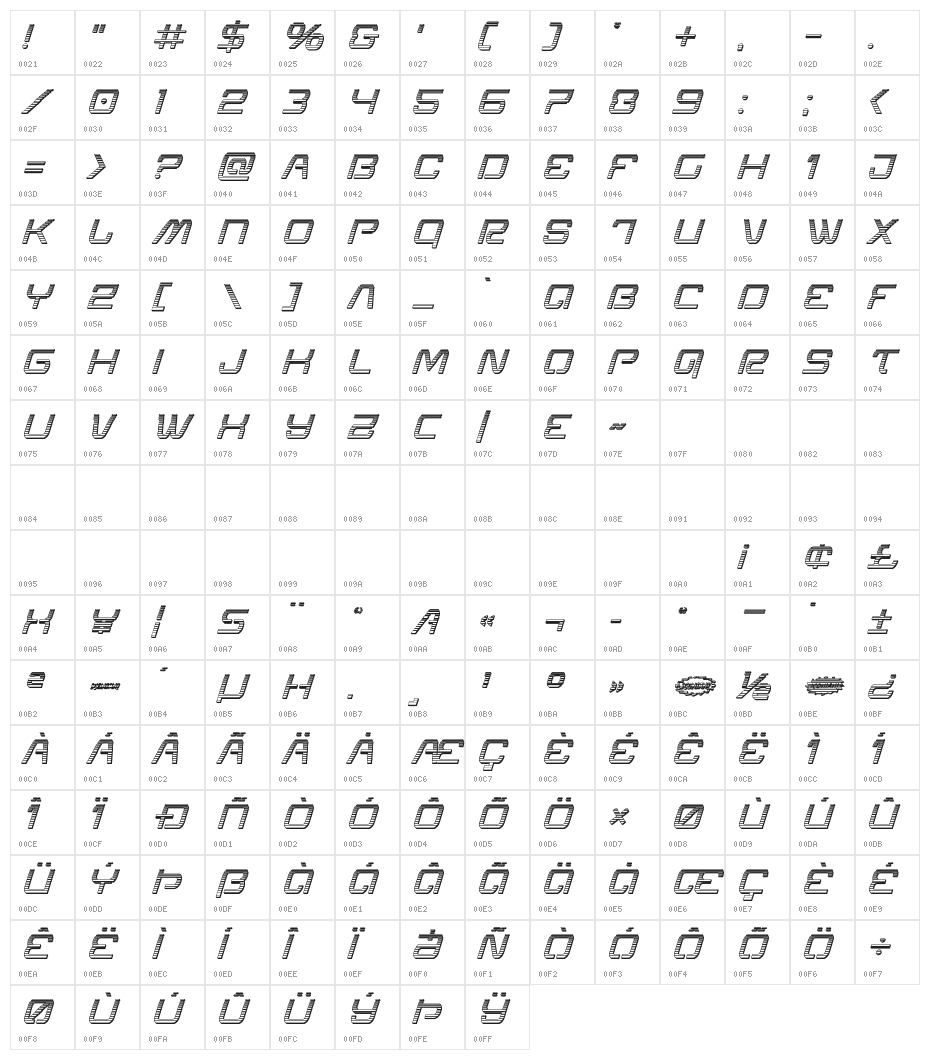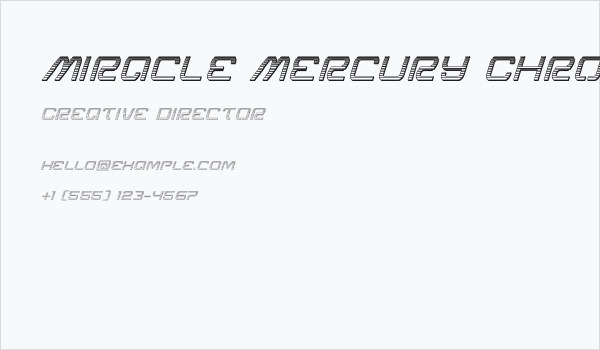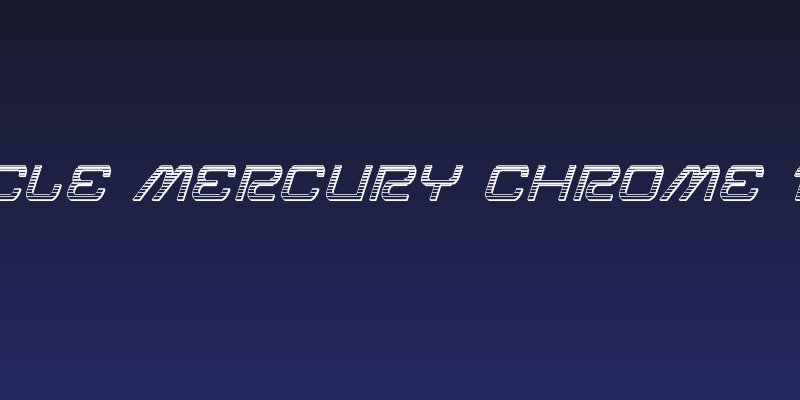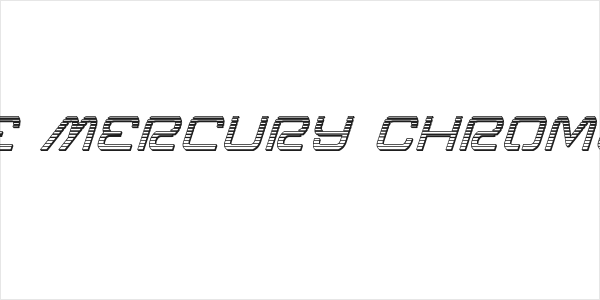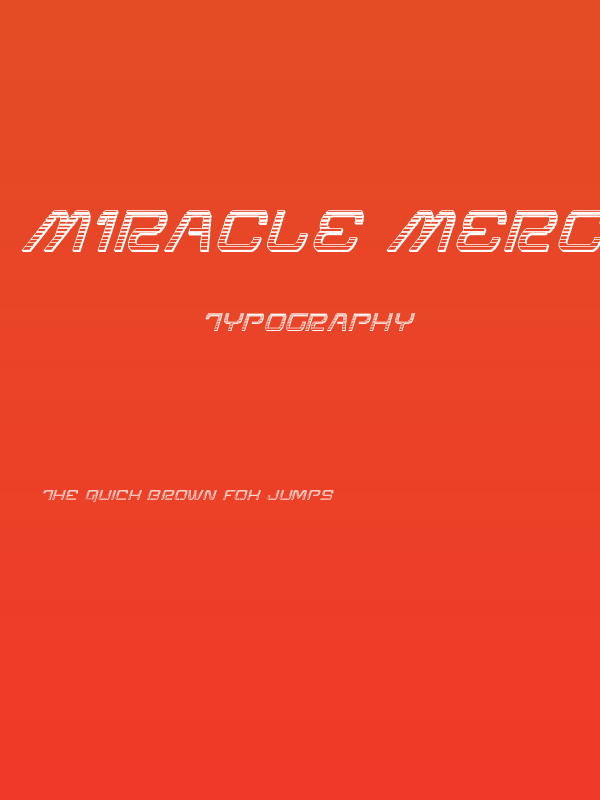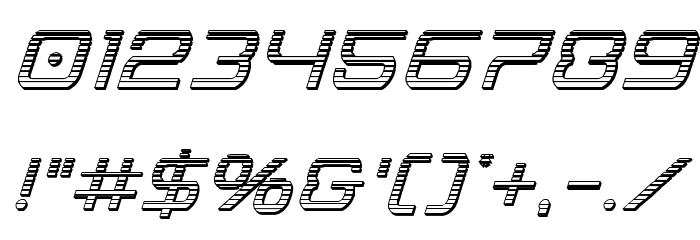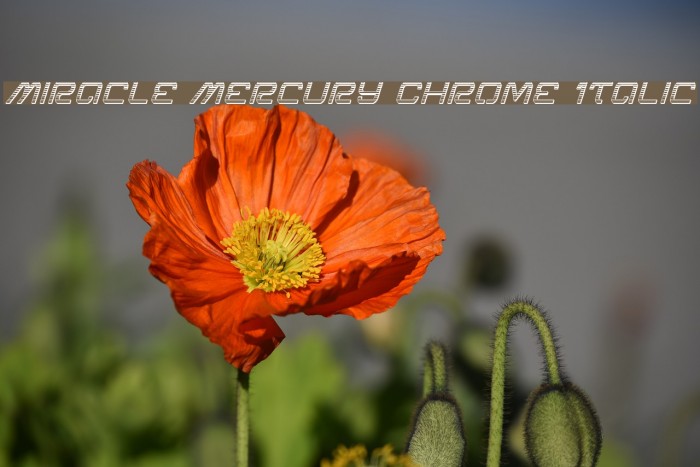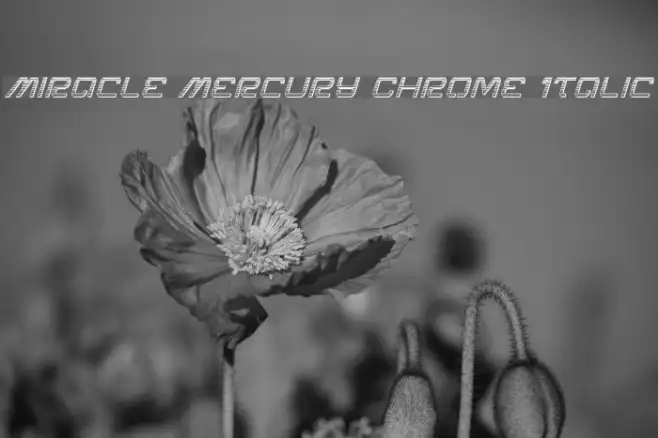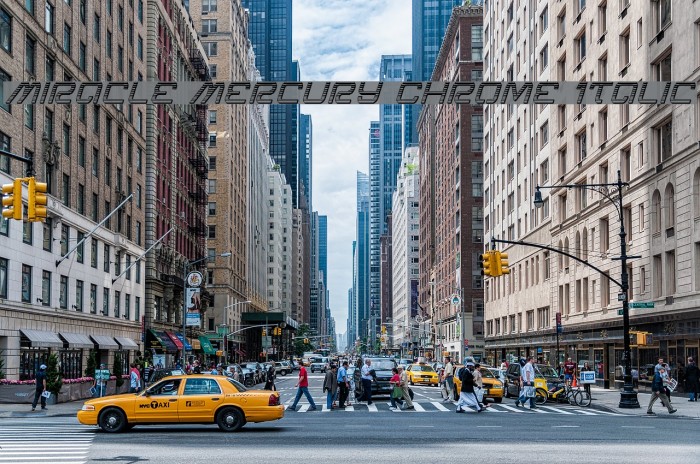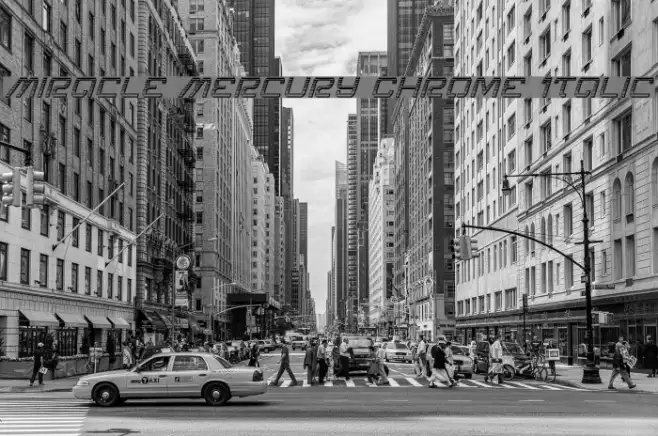
Miracle Mercury Chrome Italic Font
Miracle Mercury Chrome Italic Description
This font features a futuristic and dynamic design, characterized by its italicized and chrome-like appearance. The letters are constructed with a series of parallel lines, giving them a three-dimensional effect. The overall style is sleek and modern, with a sense of movement and energy. The uppercase and lowercase letters maintain a consistent style, with the numbers and special characters following suit. This font is ideal for projects that require a bold and eye-catching aesthetic, such as technology branding, sci-fi themed designs, or modern advertising.
| Use Case | Logos, Headlines, Posters |
| Proposed Projects | Ideal for technology branding, sci-fi themed designs, modern advertising, and dynamic logos. |